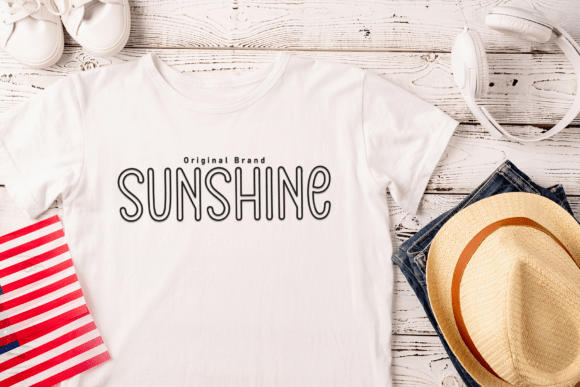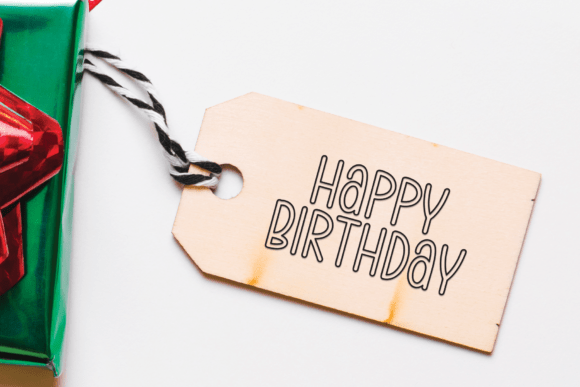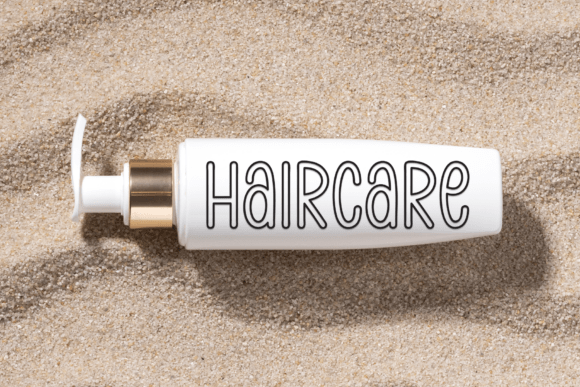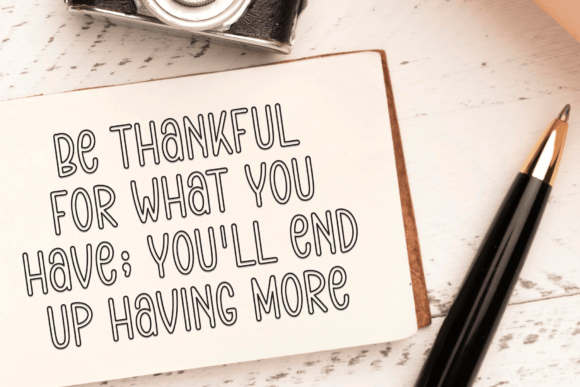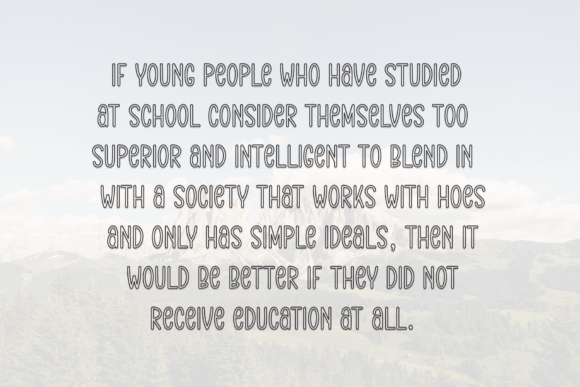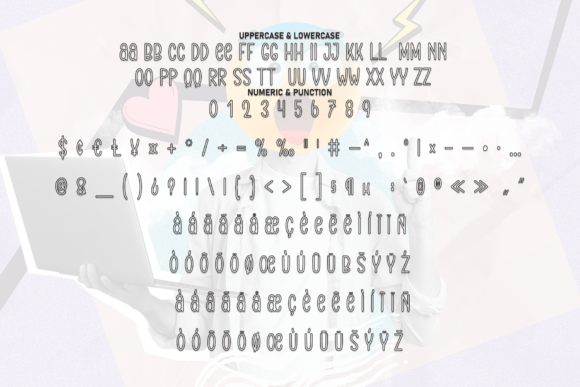
Introduction to Simple Creative Font
Have you ever stumbled upon a design that instantly sparks your creativity? Perhaps it’s a beautifully crafted logo or a captivating headline that catches your eye. As designers, we’re always on the lookout for inspiration to fuel our next creative project. For those seeking a reliable design resource, look no further than the Simple Creative Font – a versatile and high-quality typeface that’s sure to add a touch of elegance to your work.
With its clean lines, balanced letterforms, and subtle rounded edges, the Simple Creative Font embodies the essence of modern handwritten typography. This stunning font is perfect for designers seeking a polished finish, whether it’s for branding, packaging, or digital content. Its crisp structure and friendly vibe make it an ideal choice for designers looking to add a warm and inviting touch to their creative project.
Key Features of Simple Creative Font
- High-quality design with a transparent background, ideal for creative projects and designs
- Simple and modern font perfect for designers and artists looking for a design resource
- Perfect for use in creative projects, including logos, graphics, and digital art
- Unique and creative font style that adds a touch of modernity to any design
Honest Review: Simple Creative Font
One thing that really stands out about this font is its versatility. It’s perfect for both digital and print designs, from logos to social media graphics. I’ve found it to be a great choice for clients who are looking for a clean and modern aesthetic. ✨
One potential limitation is that the font may not be as unique as some other options on the market. If you’re looking for a font that really stands out from the crowd, you may want to consider another option. ⚠️
Overall, I’m really impressed with the Simple Creative Font and would definitely recommend it to designers who are looking for a reliable and versatile font for their next creative project.
To get the most out of the Simple Creative Font, use it in combination with other design elements, such as images and graphics. Experiment with different font sizes and colors to create a unique look. You can also use the font in conjunction with other design resources, such as vectors and icons, to create a cohesive design.
The Simple Creative Font is commonly used in creative projects, such as social media graphics, flyers, brochures, and presentations. It’s also ideal for creating designs for websites, blogs, and other online platforms. With its high-quality design and transparent background, the Simple Creative Font is a versatile design resource that can be used in a variety of applications.